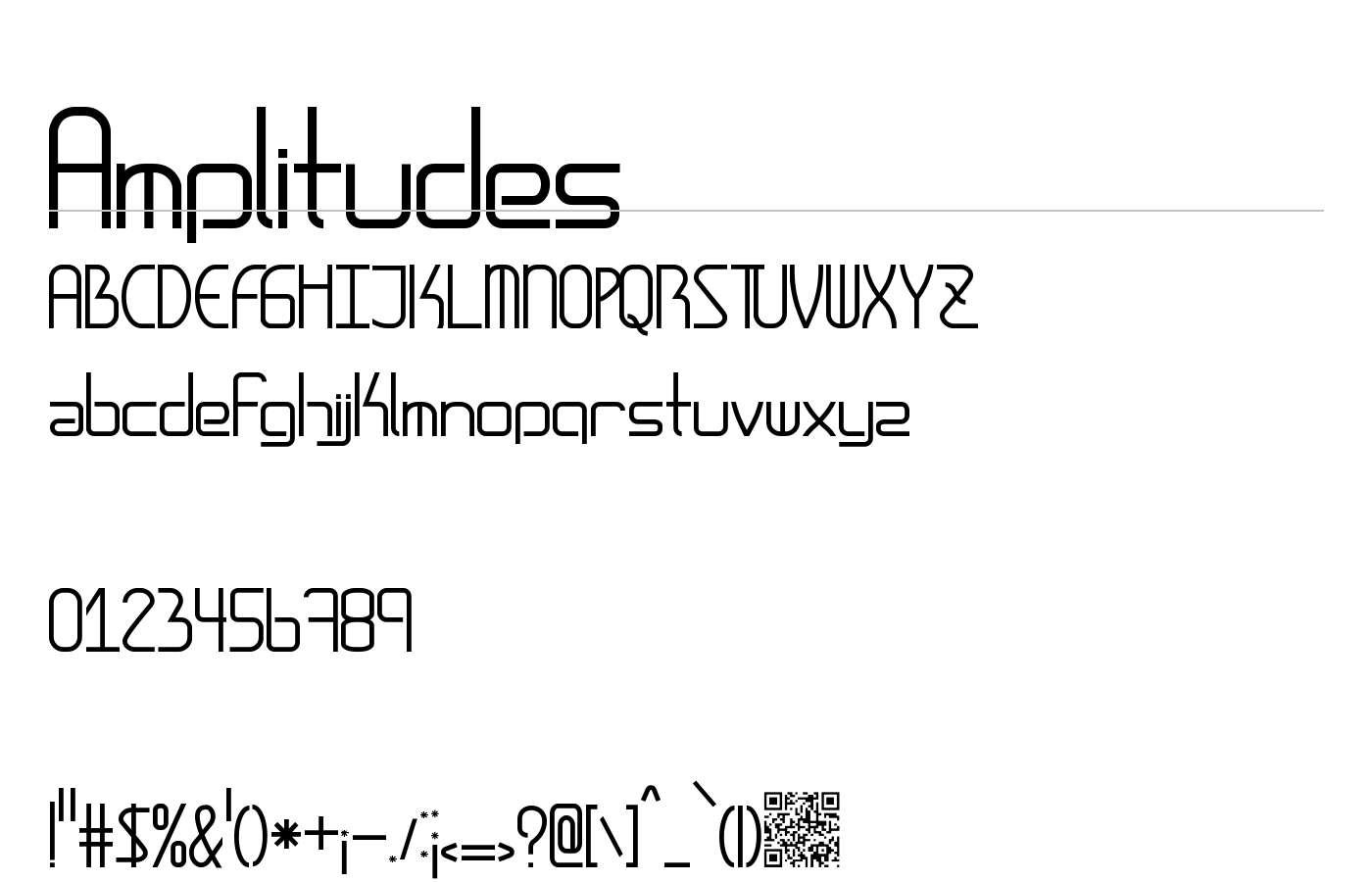
Amplitudes is a sleek, ultra-lightweight sans serif font with a narrow, tall structure and smooth, geometric lines that give it a modern, futuristic vibe. Its low stroke contrast and minimalistic letterforms, including unique rounded angles and single-story characters, make it ideal for clean, tech-inspired designs. This font works best for contemporary branding, editorial headlines, and digital interfaces where a stylish, cutting-edge aesthetic is desired.
Amplitudes Font
About Amplitudes Font
| Font family | Amplitudes Font |
| Designer | Max Infeld Xerographer Fonts |